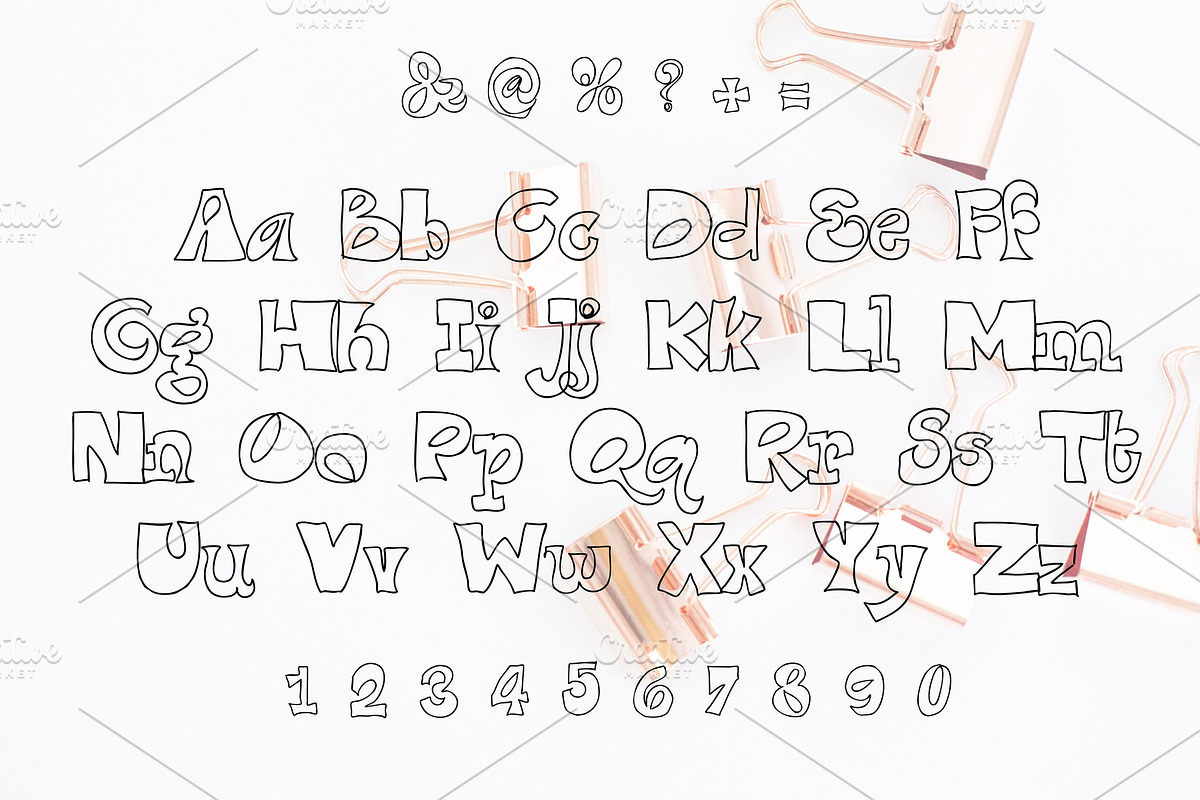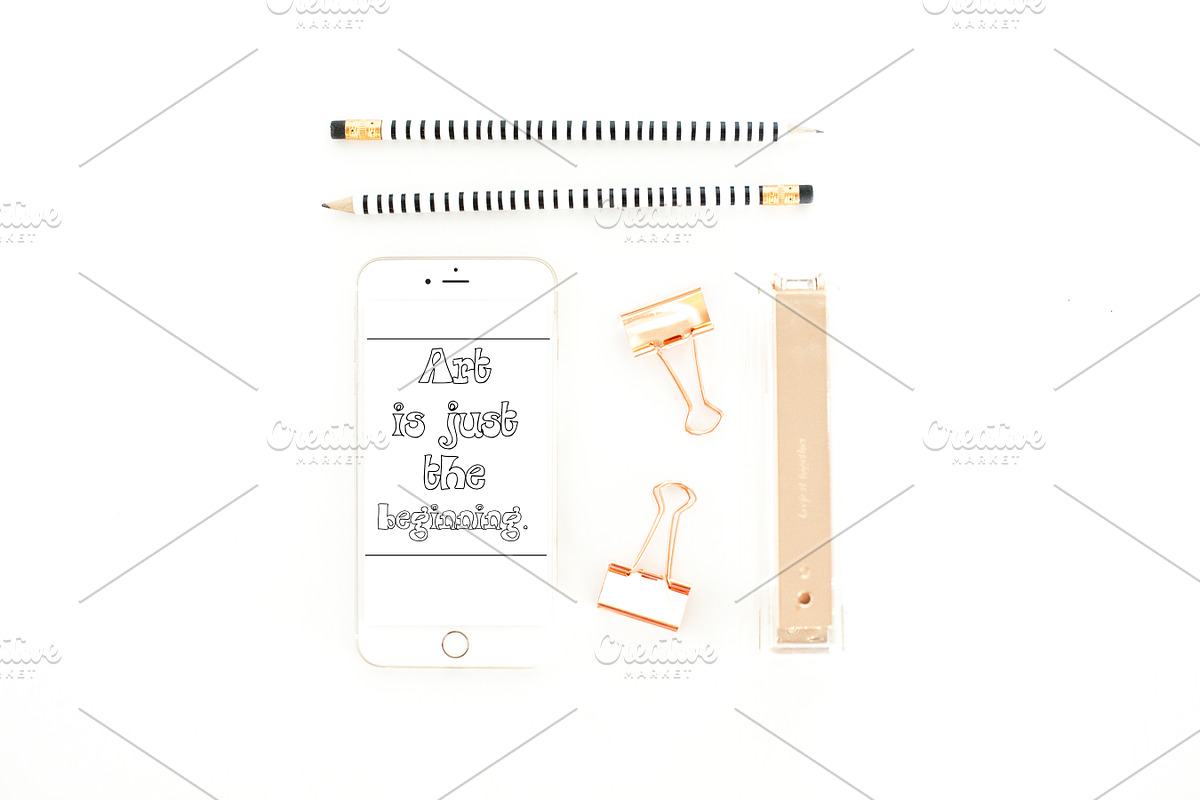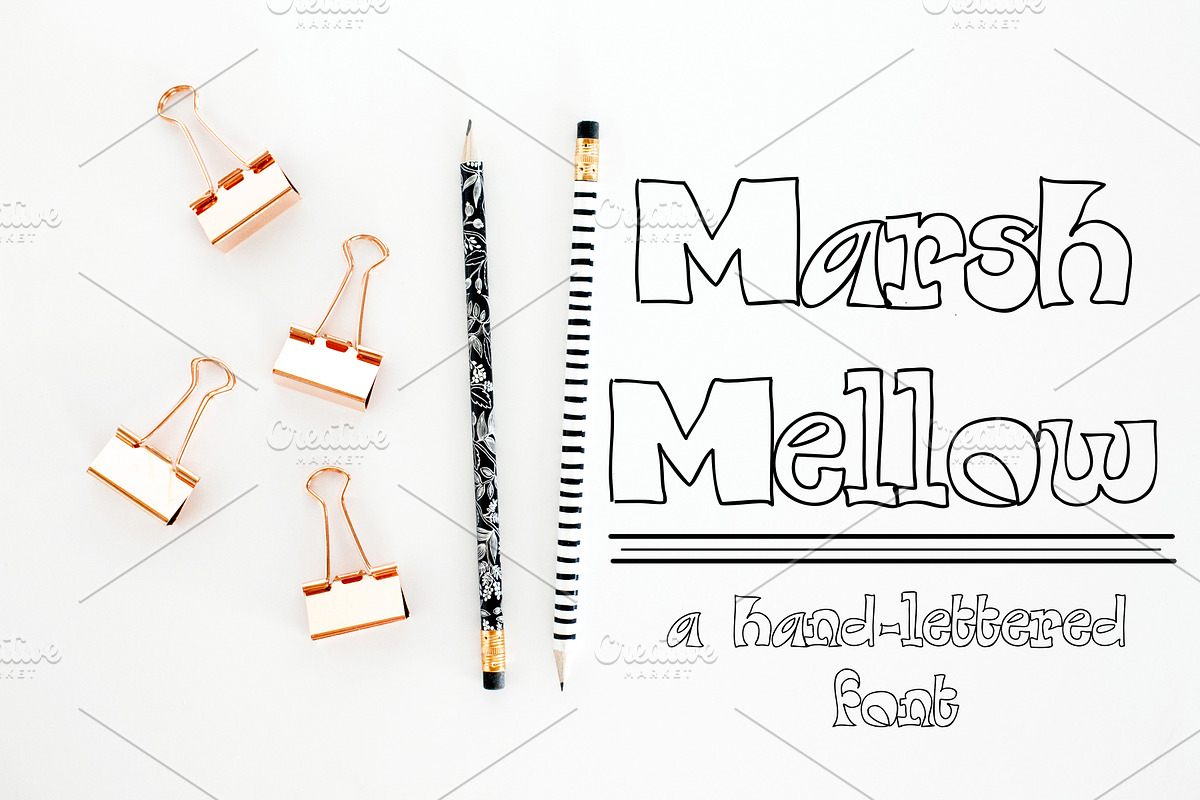
MARSH MELLOW Hand Lettered Font
MARSH MELLOW Hand Lettered Font by Rhonna Designs is a font selected for branding, posters, packaging, typography.
Why MARSH MELLOW Hand Lettered Font is worth a look
MARSH MELLOW Hand Lettered Font by Rhonna Designs fits naturally into Branding, posters, packaging, typography.